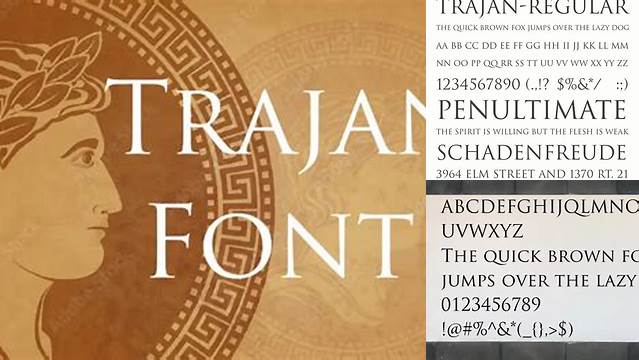
Hey everyone, are you ready to dive into the world of timeless typography? Today, we're going to explore a true legend: the Adobe Trajan font. If you're a designer, a writer, or just someone who appreciates good aesthetics, you've likely crossed paths with this iconic typeface. We'll get into where you can find the Adobe Trajan font free download, its history, its uses, and why it continues to be a go-to choice for projects of all kinds. So, grab your coffee, settle in, and let's get started!
The Enduring Appeal of Trajan: A Brief History
Let's journey back in time, shall we? The Trajan font, in its essence, draws its inspiration from the inscriptions on Trajan's Column in Rome. Commissioned in 113 AD to celebrate the Roman Emperor Trajan's victories, the column is adorned with beautifully carved lettering. These inscriptions, considered by many to be the epitome of classical Roman capitals, served as the direct inspiration for the Trajan font. The letters were meticulously crafted, showcasing perfect proportions, elegant serifs, and a timeless quality that has captivated designers for centuries. The person responsible for digitizing the font and bringing it to the masses was Carol Twombly, who designed it in 1989. She meticulously studied the original inscriptions and designed Trajan to reflect the elegance and precision of the Roman originals.
Fast forward to the present day, and the Trajan font remains a cornerstone of graphic design. Its distinctive characteristics, the classic serifs and the balanced letterforms make it an excellent choice for headlines, titles, and short blocks of text where a touch of elegance and formality is desired. Its use spans across industries, from movie posters to corporate branding, indicating its versatility and staying power. You'll find it on the big screen – think movie titles for Titanic or Gladiator – in countless book covers, and even in the branding materials of prestigious institutions. Its familiarity and inherent sophistication make it an excellent choice when you need to convey a sense of history, importance, and trustworthiness. The font's enduring appeal lies in its simplicity and clean lines, which ensure that it is never overshadowed by trends. The Roman letters are timeless, and the typeface, based on them, exudes confidence and authority. The Trajan font is much more than just a font; it's a piece of history, a design marvel, and a testament to the enduring power of classical aesthetics. It embodies the principles of balance, symmetry, and clarity that have made Roman design so influential for millennia. Many designers believe that because it is so simple and perfect, the font can be used on various occasions without any problem. It is a very flexible font.
Uses of Trajan Font: Where Does It Shine?
The Trajan font's versatility makes it a perfect choice for various design purposes. The font’s clean and bold appearance makes it ideal for titles and headlines. It grabs attention without overwhelming the design. Trajan excels in situations where you want to convey a sense of history, formality, or classic elegance. Think about movie posters or book covers aiming for a historical or epic feel. Its use in the movie industry, as seen in titles like Gladiator and Titanic, is a testament to its ability to create a sense of drama and importance. In branding, Trajan can be used to establish a brand's connection to tradition, stability, and trust. Companies in law, finance, and education often choose it for its authoritative yet accessible feel. The Trajan font works well in print and digital media. Its clean lines ensure readability at different sizes, making it a great choice for both large headlines and smaller body text. When it comes to design, pairing Trajan with other fonts can enhance the overall aesthetic. Pair the font with sans-serif fonts to achieve a balanced visual hierarchy, which can enhance the reader's understanding. The use of the font can add a touch of sophistication to your design. It gives your project a timeless quality. It's a simple way to add a dash of history and elegance to your designs. You can never go wrong with this font.
Alternatives to Adobe Trajan: Exploring Similar Fonts
If you're finding it hard to get the Adobe Trajan font, or if you're looking for something slightly different, there are some excellent alternative fonts that capture a similar aesthetic. A good place to start is looking at fonts based on Roman capitals. These fonts share the characteristics of Trajan, with elegant serifs and balanced letterforms. Check out font foundries and see if they have any similar fonts. Some of these fonts are even available for free download. Fonts like EB Garamond, Palatino, and Century Schoolbook also capture the elegance and timelessness of Trajan. They’re great alternatives if you need to create an authoritative look. However, you should make sure that the fonts you download are safe and legal. These are great alternatives if you're working on projects that need a touch of sophistication and a nod to classical design. The font's design complements well with each other. Each font is carefully designed to maintain a similar balance and classic charm. So, if Trajan is not available, these fonts are worth exploring.
Tips for Using Trajan Font Effectively
Here are some practical tips to get the most out of the Trajan font in your projects. First, consider using the Trajan font for headings and titles. Its bold presence grabs attention and adds a touch of elegance. Ensure it's the right size for your design. You should consider the context of the design. It is important to use Trajan carefully if used in large blocks of text. The font's strong serifs can make it a little difficult to read. So, avoid overusing Trajan, as too much of it can be distracting. Another tip is to experiment with different weights. Trajan comes in various weights, from light to bold. When using it, it's important to make sure there is enough contrast between the font and the background. Remember, Trajan is an excellent choice for formal and traditional designs. In addition, try to pair it with a complementary font to enhance the readability. Combining Trajan with a sans-serif font can create a balanced and visually pleasing design. These tips can help you maximize the Trajan font in your project.
Final Thoughts: Embracing the Timelessness of Trajan